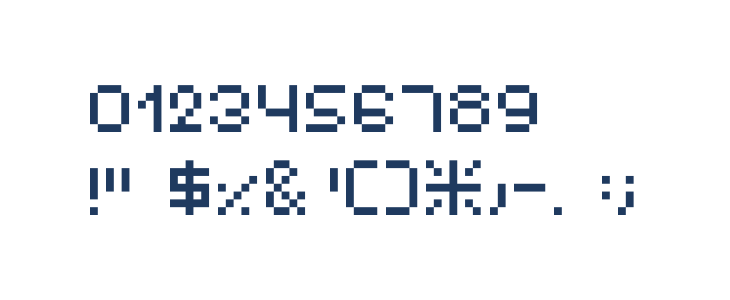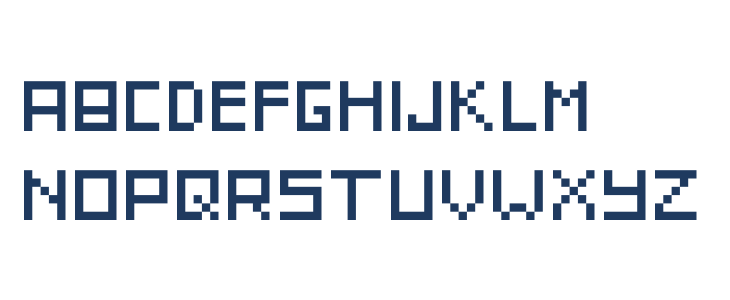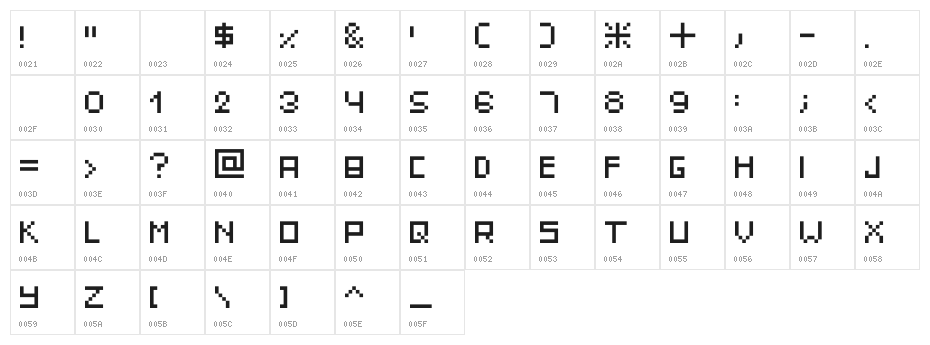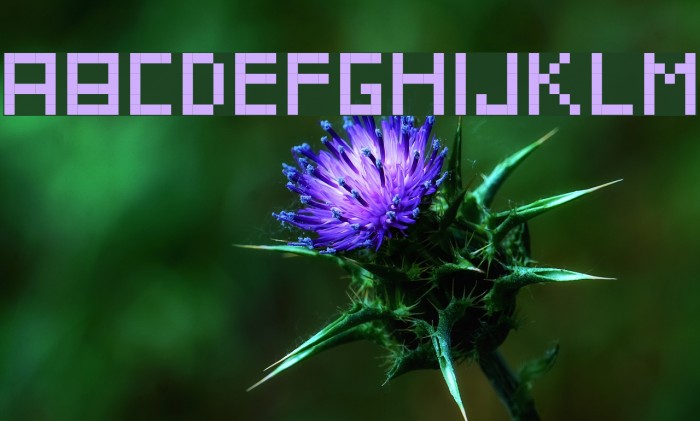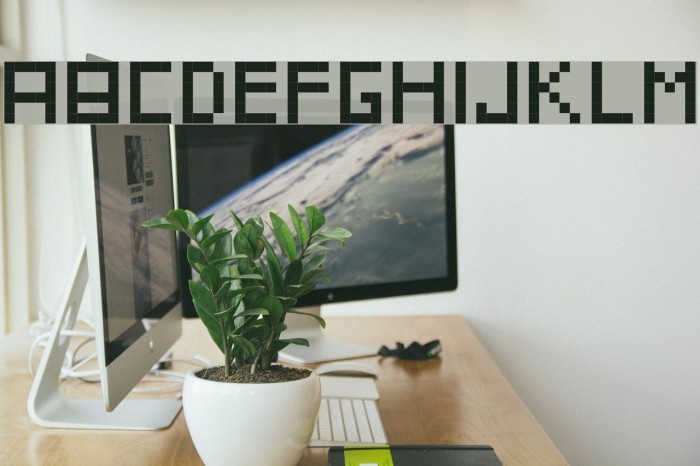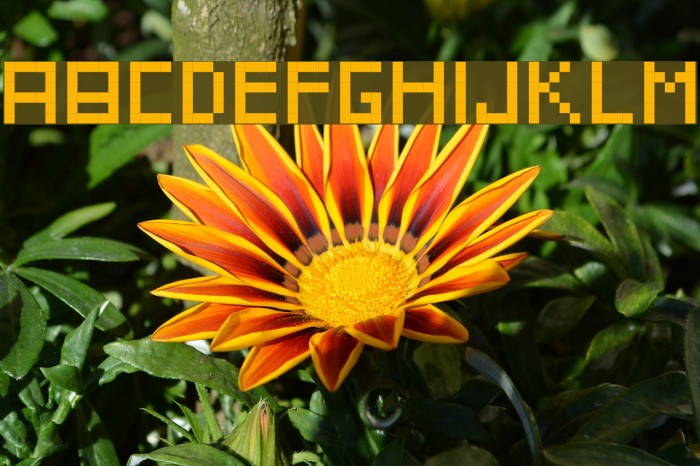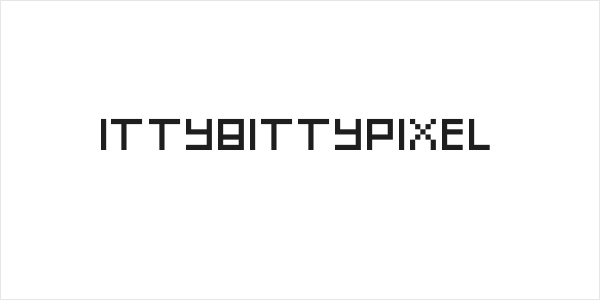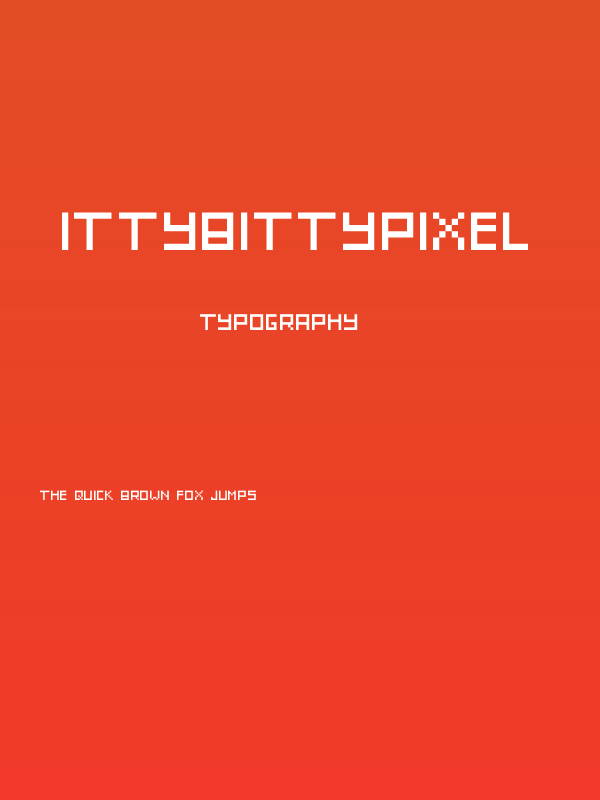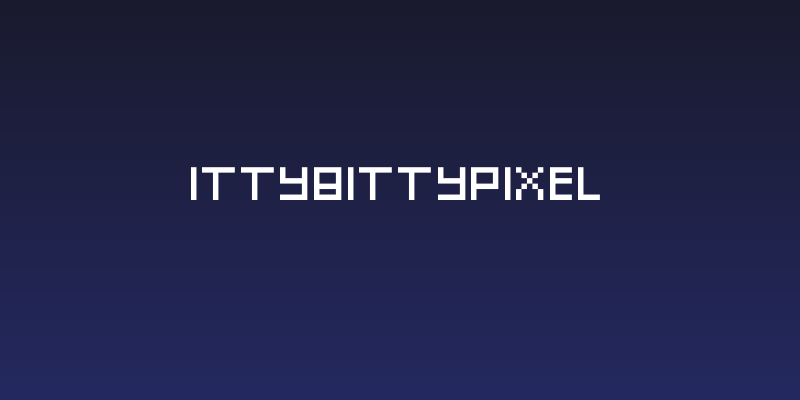
IttyBittyPixel Font
IttyBittyPixel Description
This font features a pixelated, blocky design reminiscent of early digital displays and classic video games. Each character is constructed with a grid-like precision, giving it a distinctly retro and digital aesthetic. The uppercase and lowercase letters maintain a uniform height, enhancing the font's geometric consistency. Numbers and special characters follow the same pixelated style, ensuring a cohesive look across all glyphs. The font's simplicity and clarity make it highly legible, even at smaller sizes, while its nostalgic charm adds a playful touch to any design.
Overall StyleRetro, Digital
Proposed ProjectsIdeal for video game design, digital art projects, retro-themed posters, and any creative work that seeks to evoke nostalgia for early computing and gaming eras.